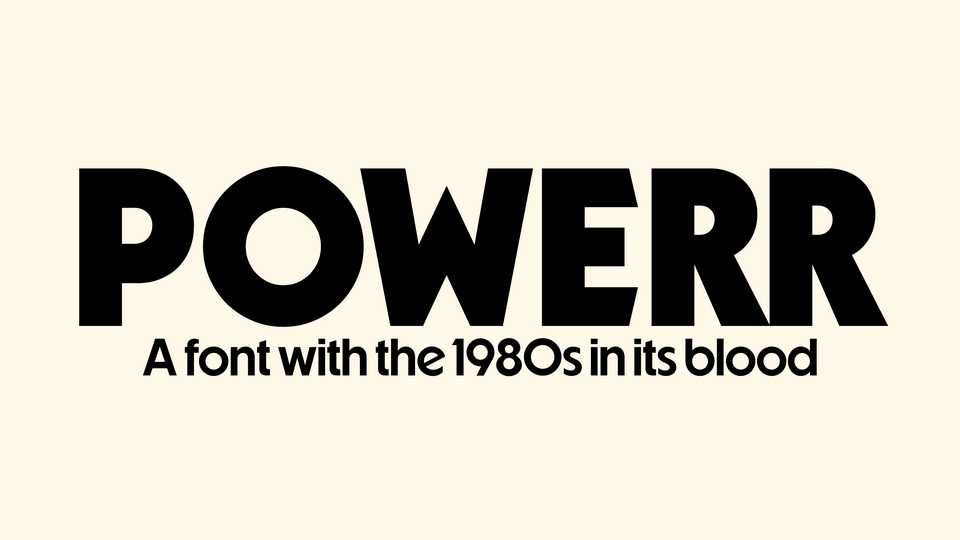
Download Powerr font, a sans serif typeface with the 1980s in its blood. When you want to feel nostalgic, power through with Powerr, this font is the only font to truly capture the eighties.
Designer: Quinn Davis